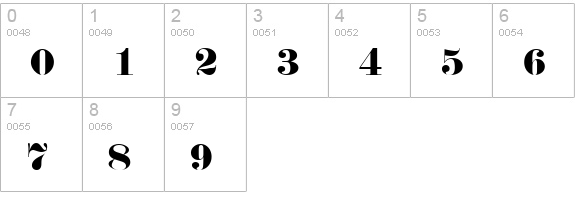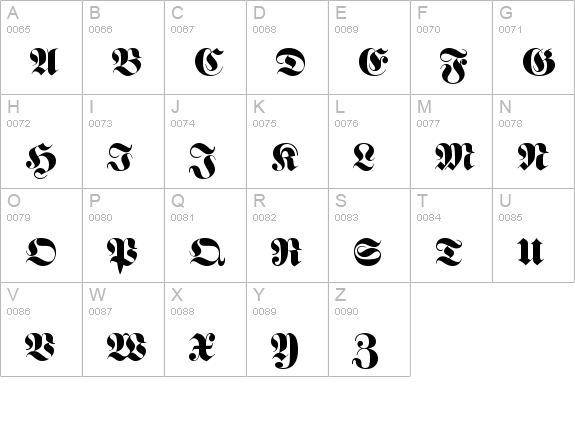
FetteFraD Font Details
FetteFraD font is a bold and distinctive typeface that exudes a sense of strength and modernity. With its clean lines and sharp edges, this font is perfect for making a statement in your design projects. Whether you're creating a poster, logo, or website, FetteFraD font will grab attention and leave a lasting impression. What's even better is that FetteFraD font is completely free to download at FontsMarket.com. So, you can add this eye-catching font to your collection without any cost. Don't miss out on this opportunity to enhance your designs with the bold and impactful FetteFraD font. Download it now and unleash your creativity!